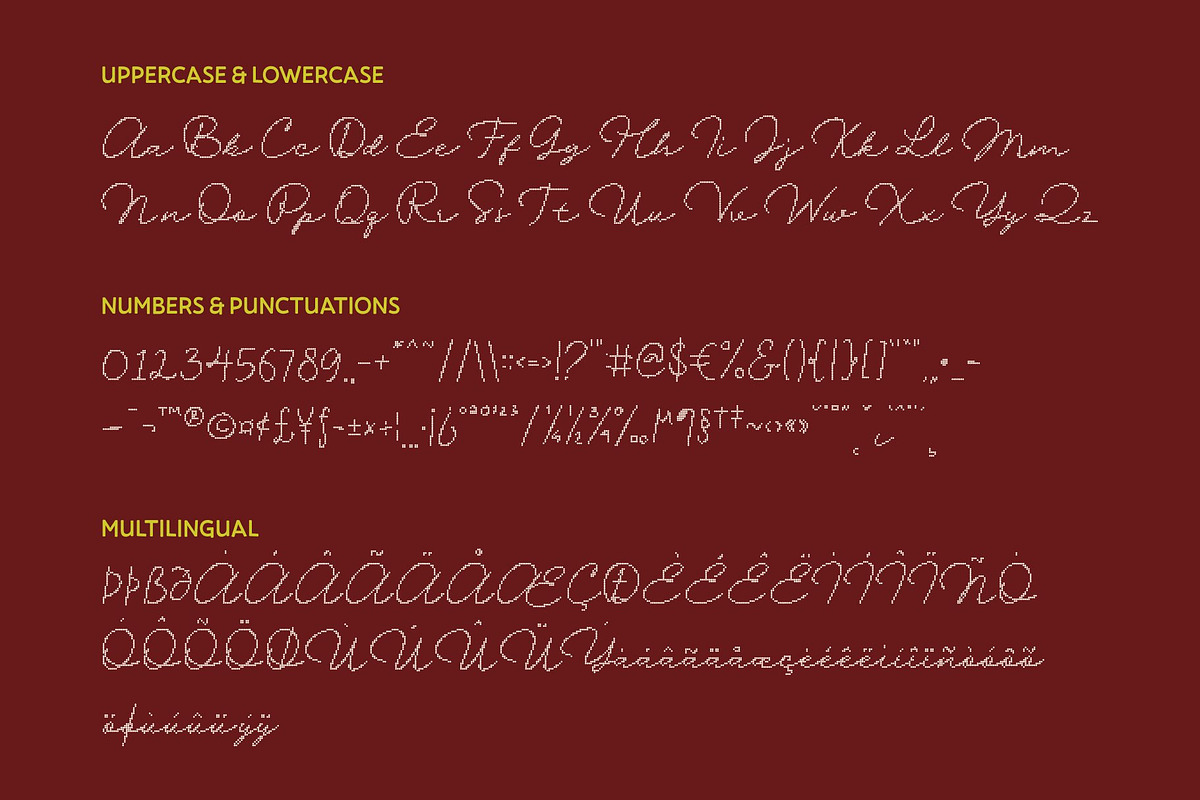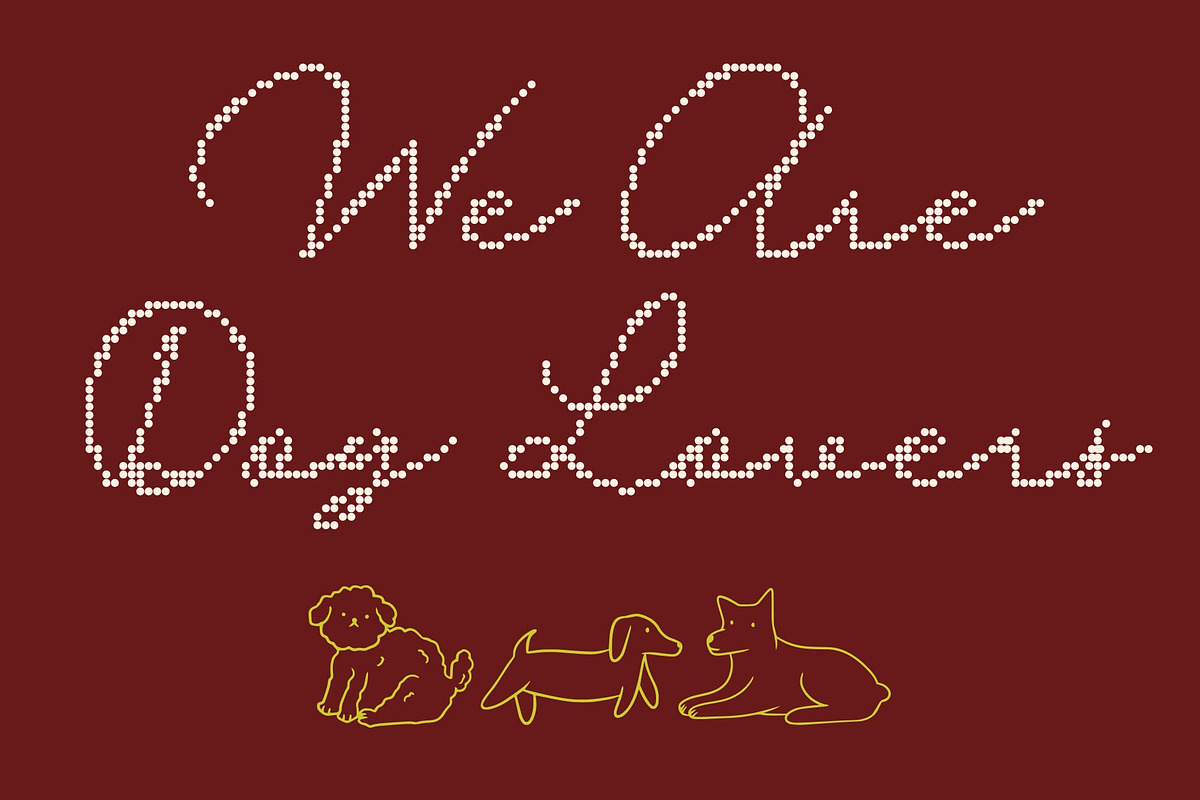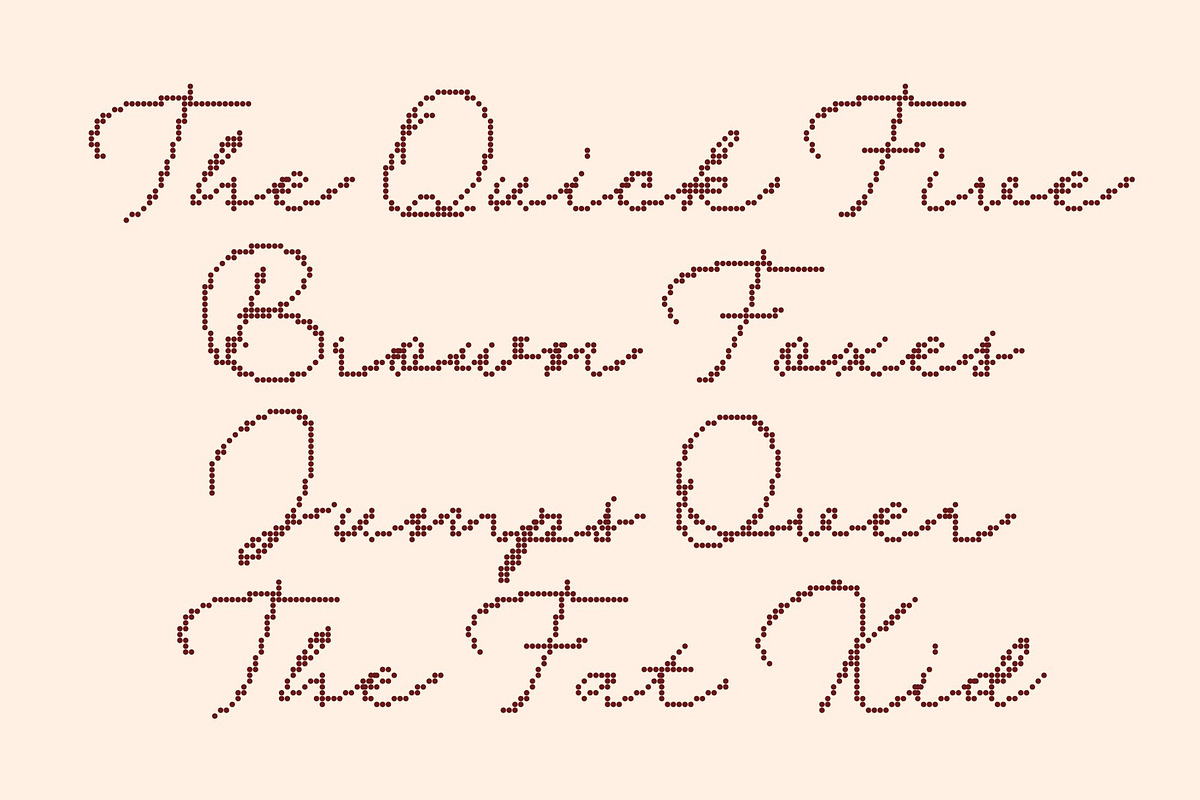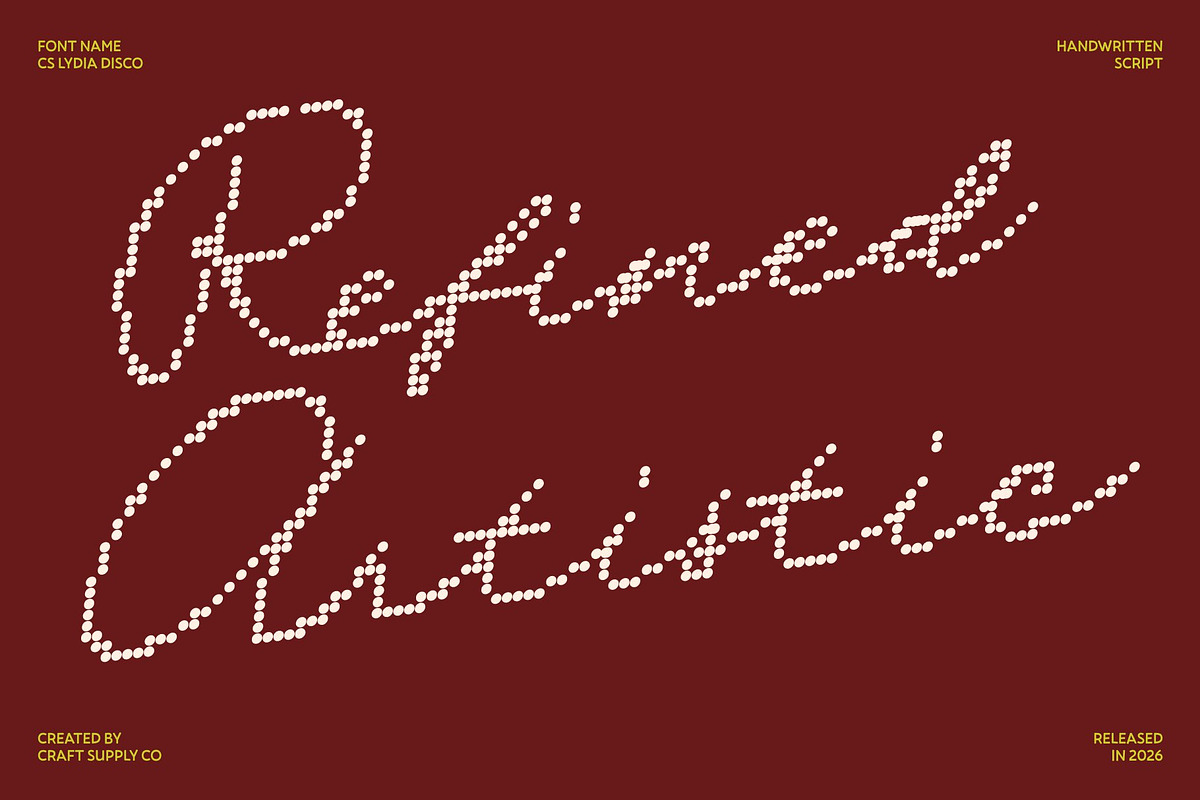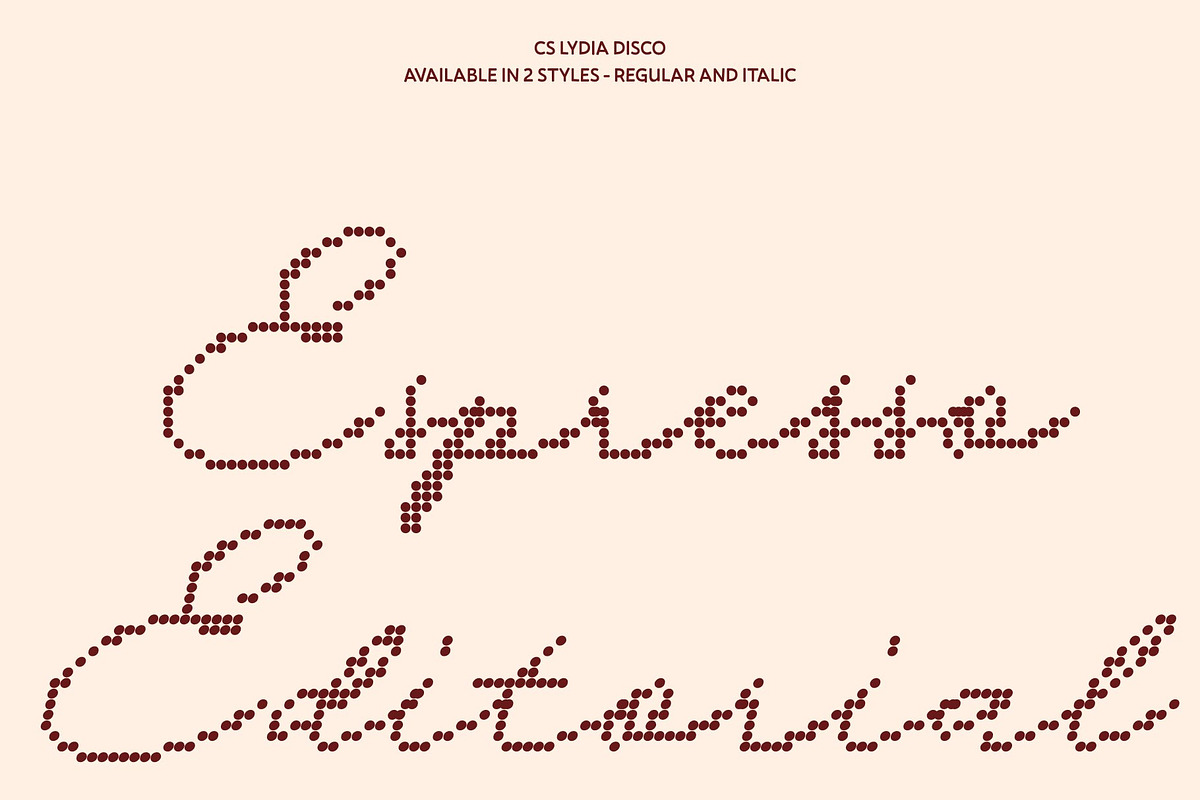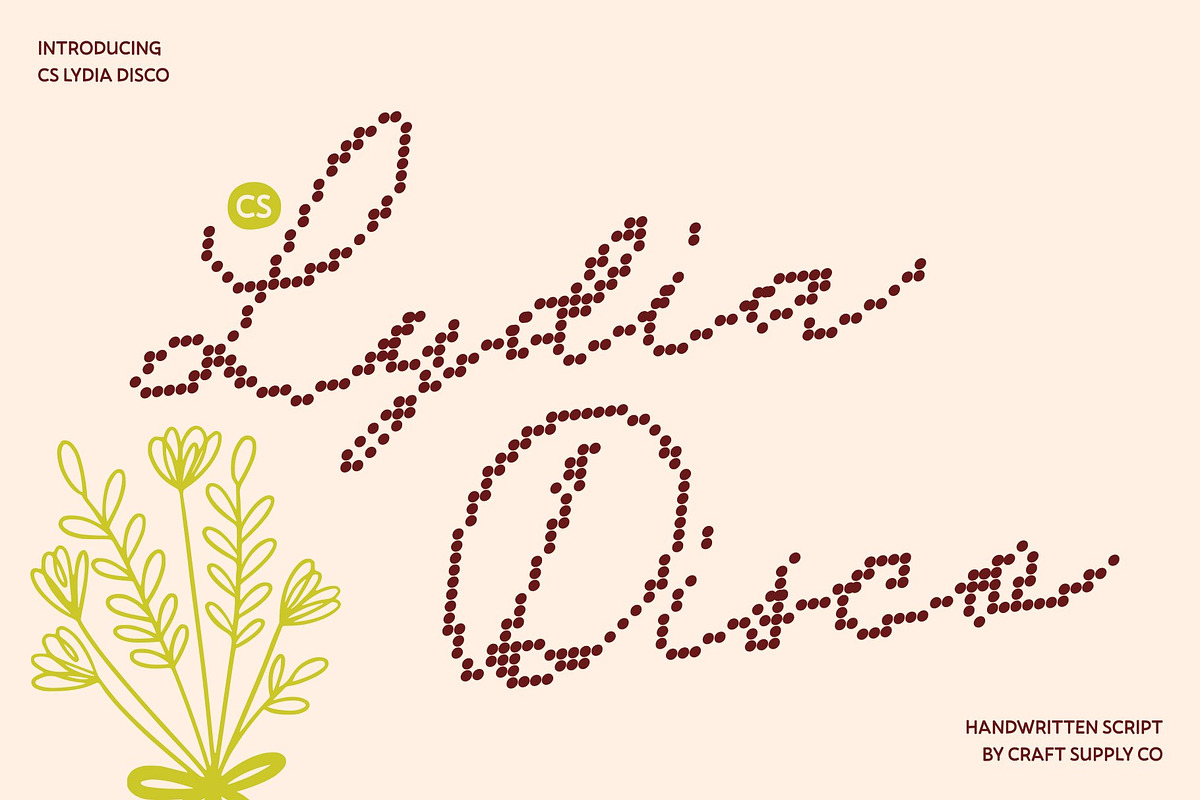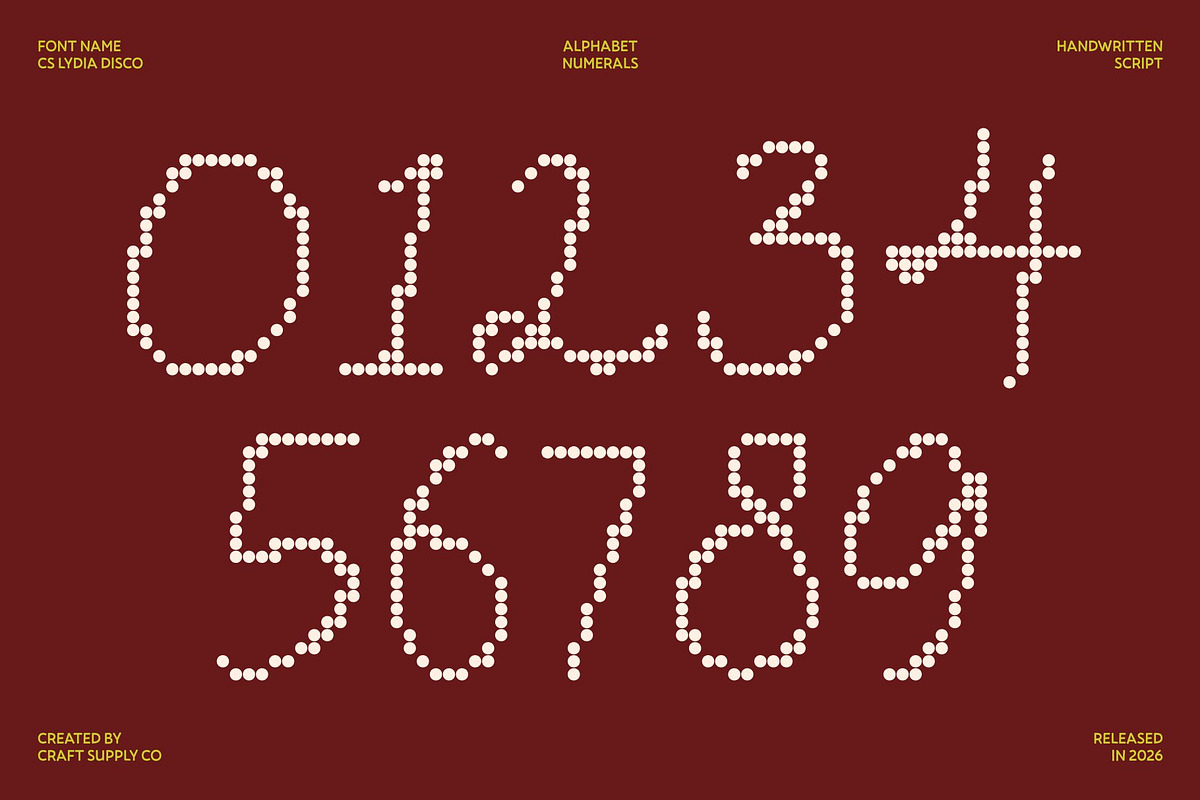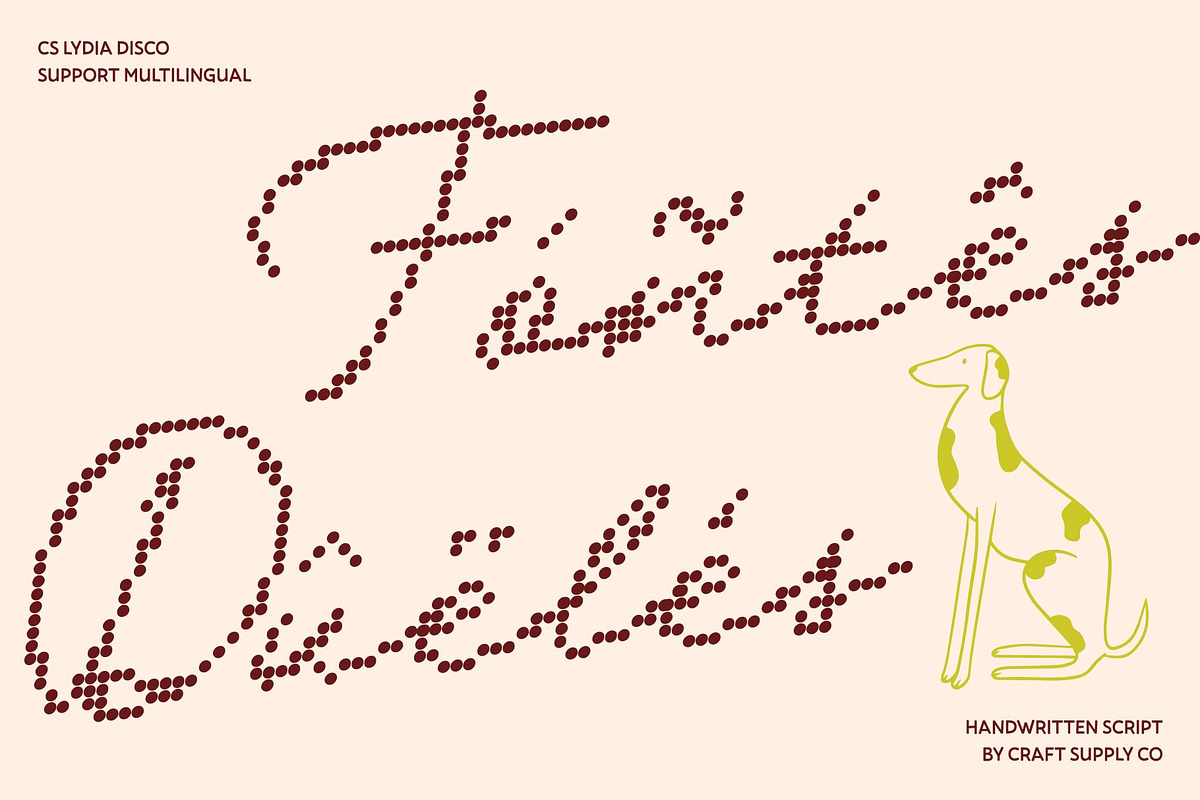
CS Lydia Disco
CS Lydia Disco – Handwritten Elegance with Mediterranean Glow
Romantic Script with Timeless Beauty and Disco Radiance This is a romantic handwritten script font that flows effortlessly with Mediterranean elegance now enhanced with a subtle disco shimmer. Its smooth, graceful curves and refined letterforms capture natural beauty while adding a luminous, celebratory touch. Each word feels intimate yet glamorous, like handwriting illuminated under golden evening lights.
Elegant Flow with Rhythmic Grace Every stroke is crafted to convey fluidity, charm, and movement. The gentle sweep of its script lines creates a harmonious visual rhythm, blending romance with a soft dance-floor glow. This balance of warmth and sparkle makes it ideal for designs that seek emotion, grace, and a refined festive spirit.
Natural Sophistication with Lively Spark Combining the spontaneity of authentic handwriting with polished structure, this font strikes a beautiful harmony between organic flow and professional precision. Its elegance feels timeless, while a subtle bounce in its forms adds personality and vibrancy perfect for modern creatives who want luxury with energy.
Perfect for Romantic and Glamorous Creations From wedding invitations and upscale branding to luxury packaging, fashion editorials, and elegant event materials, brings heartfelt sophistication with a radiant twist. It expresses romance, confidence, and Mediterranean-inspired charm now glowing with celebratory brilliance.